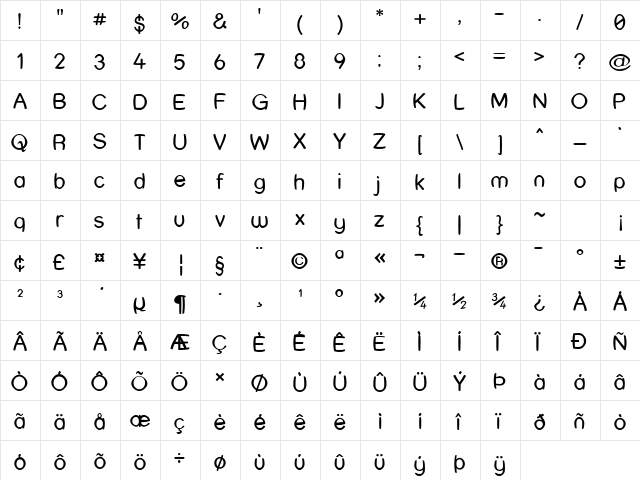
Street Humouresque Regular
Design Context for Street Humouresque Typeface
Street Humouresque is a composed and adaptable typeface that performs quietly and consistently across a wide range of design contexts.
Pro Tip: Use Street Humouresque in both headline and body roles to test its range before committing to a single application.